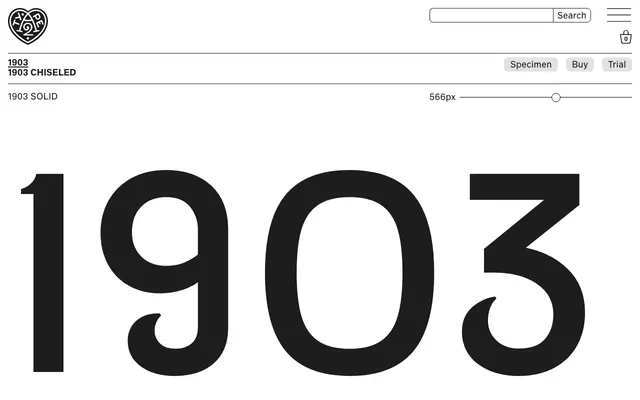
A display typeface drawn from just four numerals carved into a Victorian railway datestone in East London, available in Solid and Chiseled styles.
Derived from the carved lettering of a datestone above a former East London railway entrance, this is not a historical revival but a contemporary interpretation of a very specific source. Available in one weight with two styles — Solid and Chiseled — the latter preserving the incised quality of the hand-carved original. Despite its display character and expressive quirks at large sizes, A2-Type designed it to remain legible at small point sizes.
Inspired directly by chiselled datestone lettering from a railway building in East London, the typeface sits firmly in the display category with its carved, inscriptional character and two styles — Solid and Chiseled — designed for impact at large sizes.